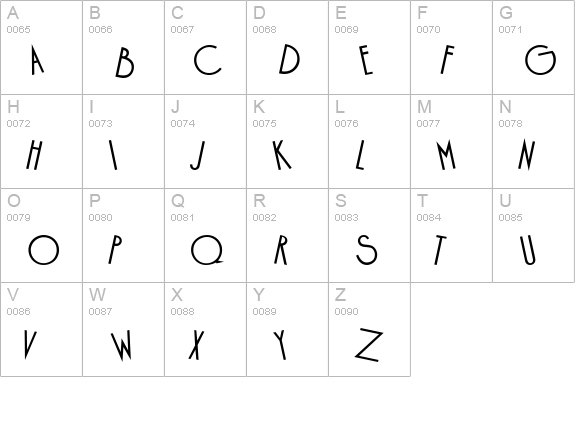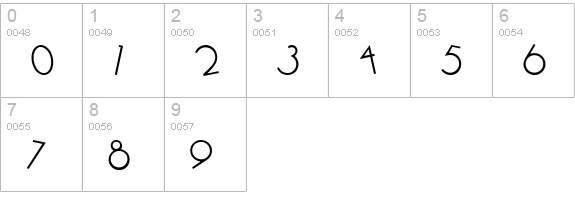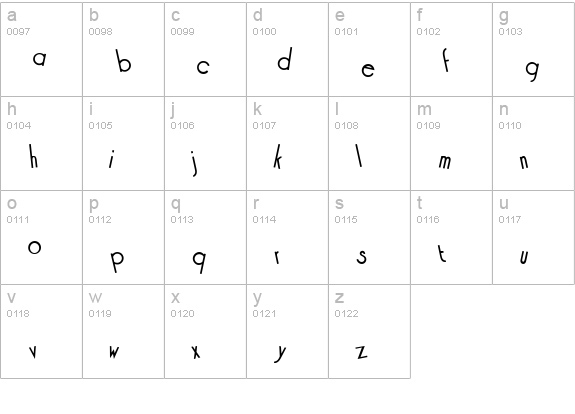
Cocktail Font Details
Cocktail font is a charming and elegant typeface that exudes a sense of sophistication and style. Its flowing curves and distinctive design make it perfect for adding a touch of class to any project. This font is versatile and can be used for a variety of purposes, from invitations to branding materials. The Cocktail font is available for free download at FontsMarket.com, making it accessible to everyone looking to elevate their designs with a touch of elegance. Don't miss out on the opportunity to enhance your projects with this stunning font that is both stylish and free to use.